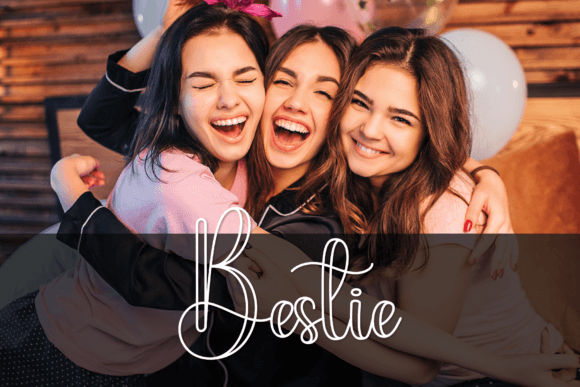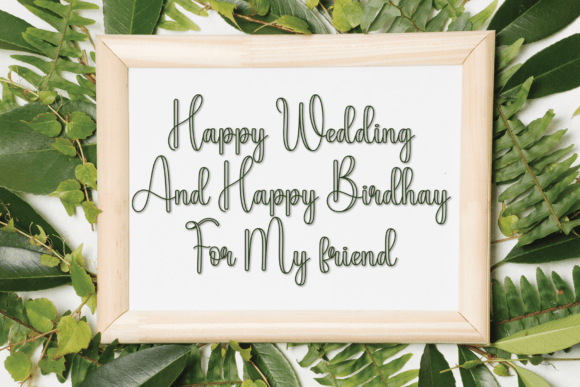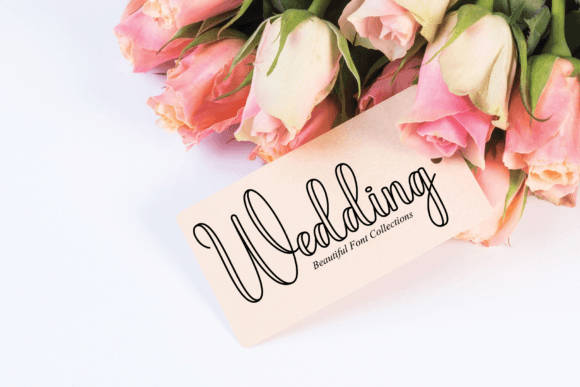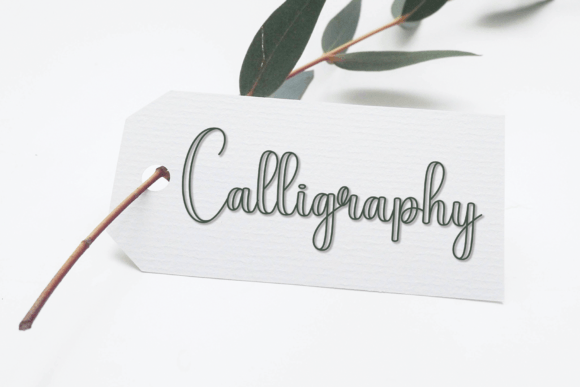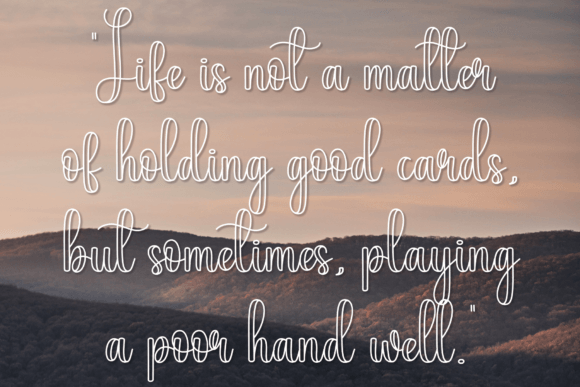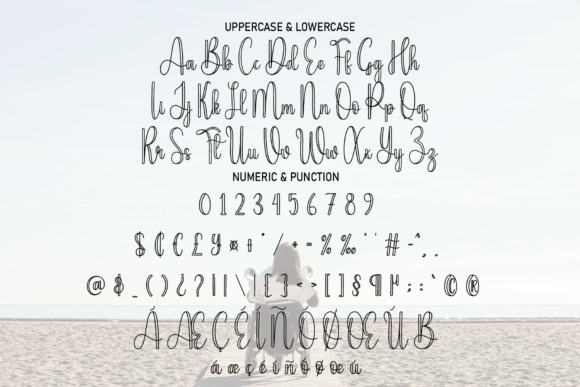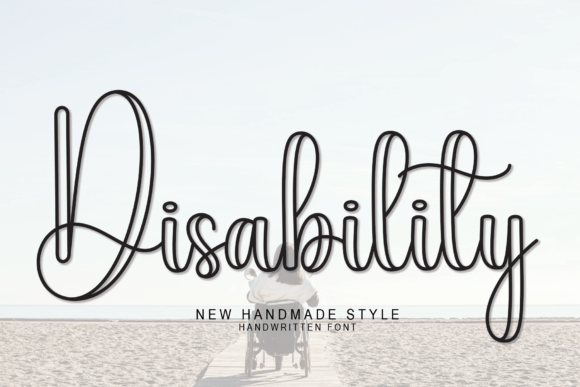
Disability Font: The Ultimate Handwritten Font for Creative Projects
Are you tired of using the same old fonts for your creative projects? Look no further than the Disability Font, a neat and casual handwritten font that’s perfect for designers and crafters alike. With its incredibly versatile design, this font is suitable for a wide spectrum of applications, from digital media to print materials.
What is Disability Font?
Disability Font is a unique and stylish handwritten font that’s designed to add a personal touch to your creative projects. Its neat and casual design makes it perfect for a variety of applications, from social media graphics to blog posts, and even print materials like brochures and flyers.
Key Features of Disability Font
• Neat and Casual Design: The Disability Font has a neat and casual design that’s perfect for creating a friendly and approachable tone in your creative projects.
• Incredibly Versatile: This font is suitable for a wide spectrum of applications, from digital media to print materials, making it a great addition to your font library.
• Easy to Read: The Disability Font is designed to be easy to read, even at small sizes, making it perfect for body text and captions.
• Unique and Stylish: This font has a unique and stylish design that will add a personal touch to your creative projects and make them stand out from the crowd.
Benefits of Using Disability Font
Using the Disability Font in your creative projects can have a number of benefits, including:
• Adding a Personal Touch: The Disability Font has a personal and friendly design that will add a touch of warmth to your creative projects.
• Standing Out from the Crowd: With its unique and stylish design, the Disability Font will help your creative projects stand out from the crowd and grab the attention of your audience.
• Improving Readability: The Disability Font is designed to be easy to read, even at small sizes, making it perfect for body text and captions.
• Enhancing Branding: The Disability Font can be used to enhance your branding and create a consistent visual identity across all your creative projects.
How to Use Disability Font
Using the Disability Font is easy and straightforward. Here are a few tips to get you started:
• Use it for Headings and Titles: The Disability Font is perfect for headings and titles, where its unique and stylish design can really shine.
• Use it for Body Text: The Disability Font is also suitable for body text, where its easy-to-read design makes it perfect for long blocks of text.
• Experiment with Different Sizes: The Disability Font looks great at a variety of sizes, so don’t be afraid to experiment and find the perfect size for your creative project.
• Pair it with Other Fonts: The Disability Font can be paired with other fonts to create a unique and stylish visual identity for your creative project.
In conclusion, the Disability Font is a unique and stylish handwritten font that’s perfect for designers and crafters alike. With its incredibly versatile design, easy-to-read style, and personal touch, this font is suitable for a wide spectrum of applications, from digital media to print materials. Whether you’re looking to add a personal touch to your creative projects, stand out from the crowd, or enhance your branding, the Disability Font is a great choice.
• Use the Disability Font to create a consistent visual identity across all your creative projects.
• Experiment with different sizes and pairings to find the perfect look for your creative project.
• Use the Disability Font to add a personal touch to your digital media, such as social media graphics and blog posts.
• Consider using the Disability Font for print materials, such as brochures and flyers, to create a unique and stylish visual identity.